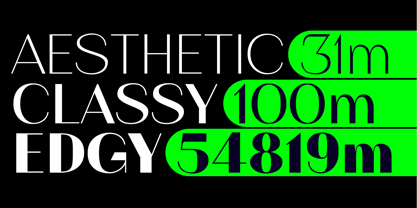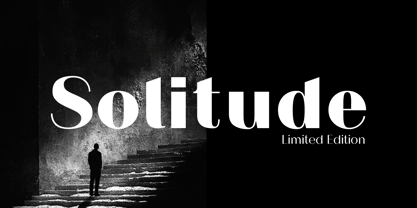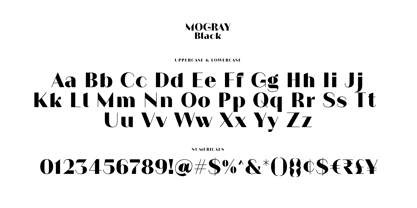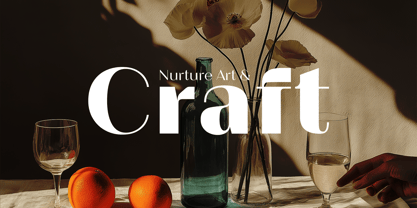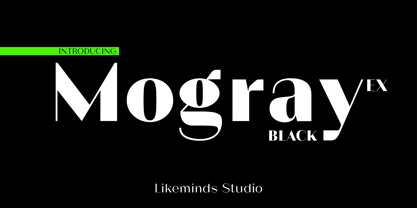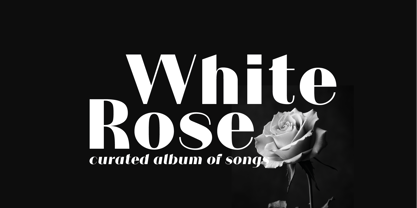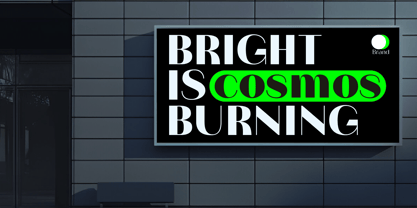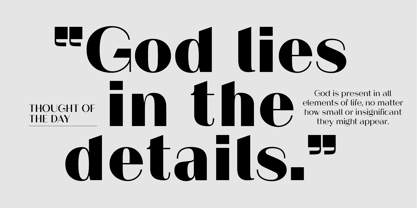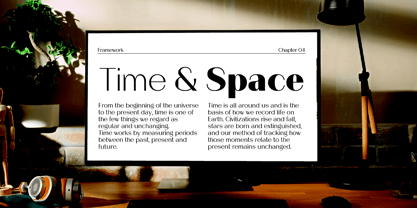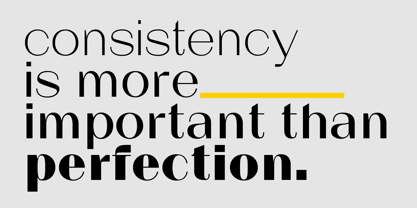
Mogray EX
by Likeminds Studio
The Mogray EX Font Family was designed by Abhya Chawla and published by Likeminds Studio. Mogray EX contains 2 styles and family package options.
Mogray Black
By Likeminds Studio | 2 Styles Including Italics
Mogray Black is a high-contrast sans-serif typeface that redefines contemporary elegance. Inspired by the delicate yet powerful essence of the Mogra (jasmine) flower, Mogray blends sharp sophistication with graceful form.
From standout headlines to refined brand identities, Mogray delivers versatility with impact. Its unique character set—marked by clean geometry, subtle curves, and stylized details, makes it ideal for:
• Logotypes & Wordmarks
• Editorial Design & Magazines
• Advertising & Marketing
• UI/UX & Digital Interfaces
Key Features
• High contrast with a modern edge
• Excellent legibility at all sizes
Whether you're designing bold visuals or crafting sophisticated content, Mogray adds a premium tone with every letterform. Crafted with love. Made to inspire.